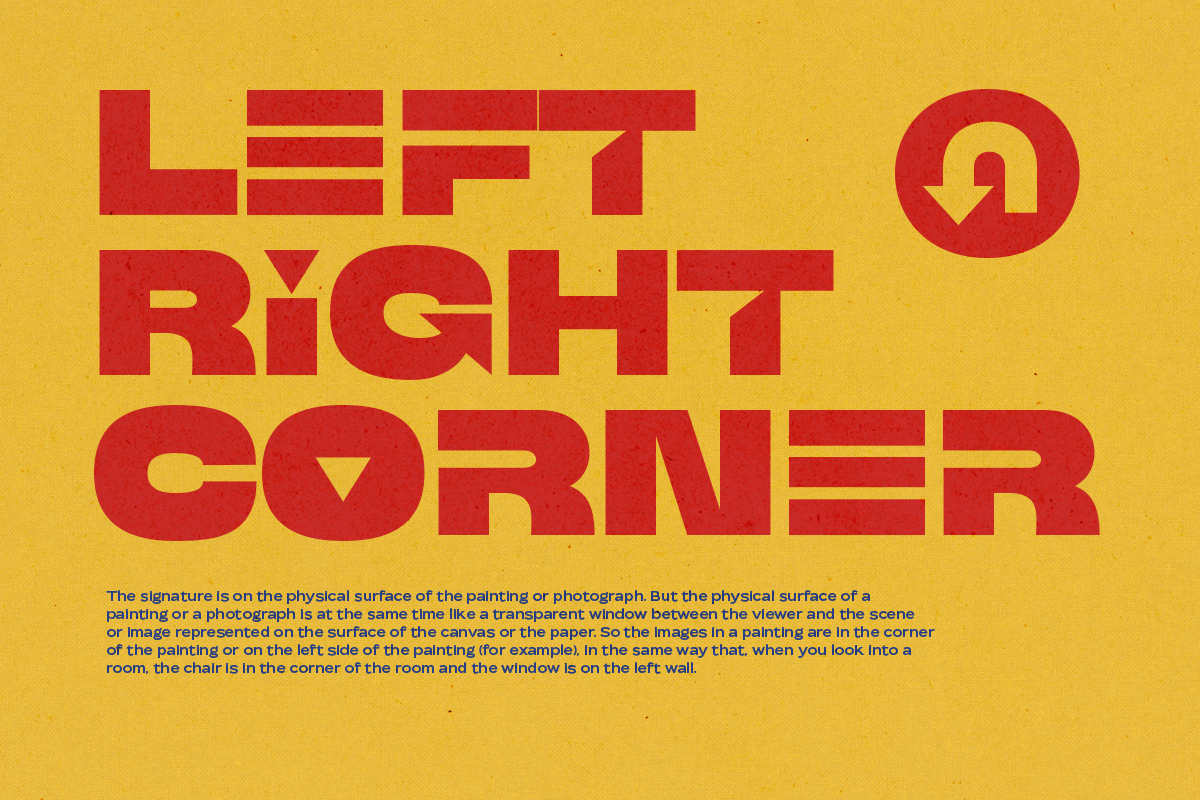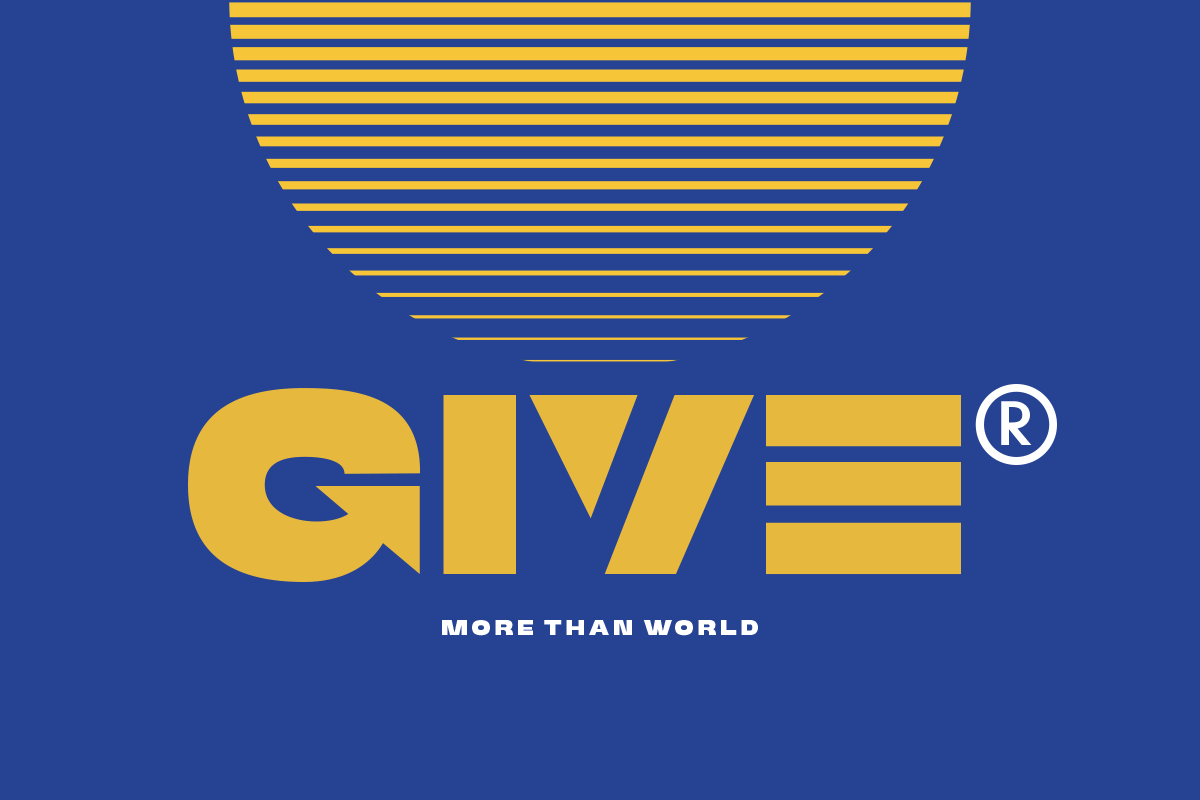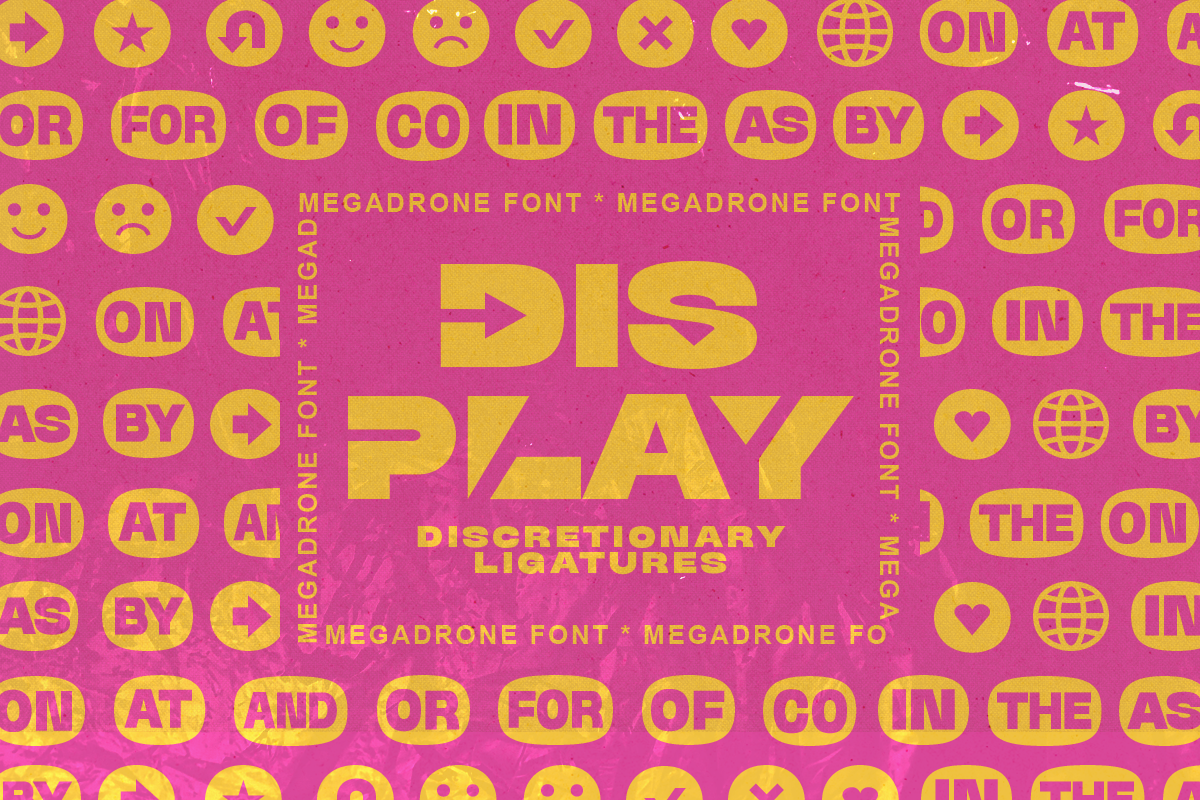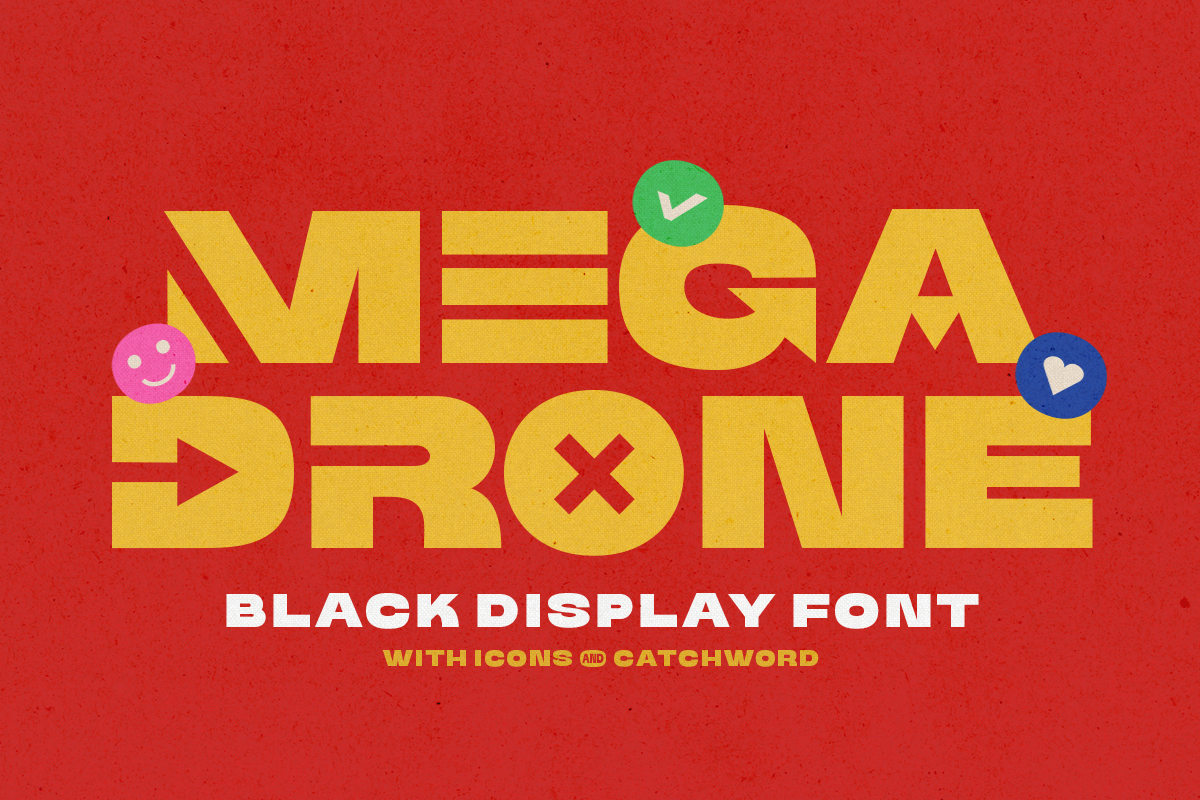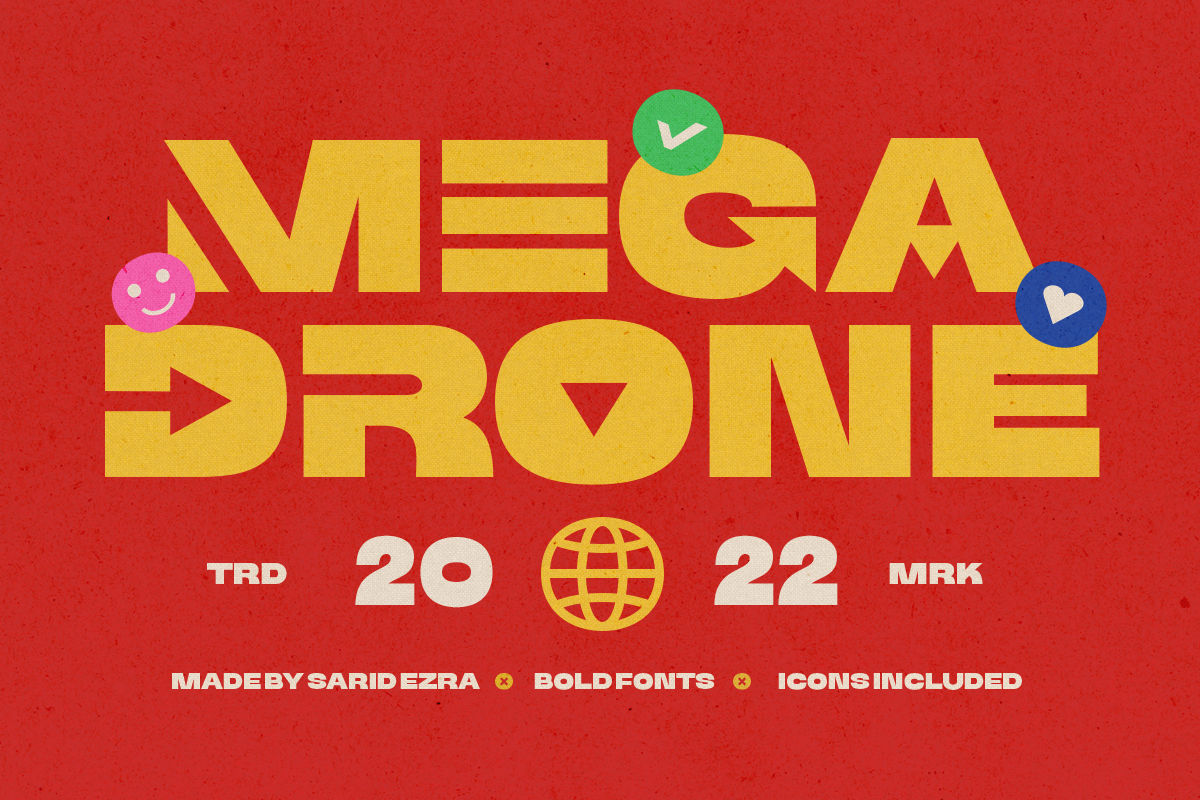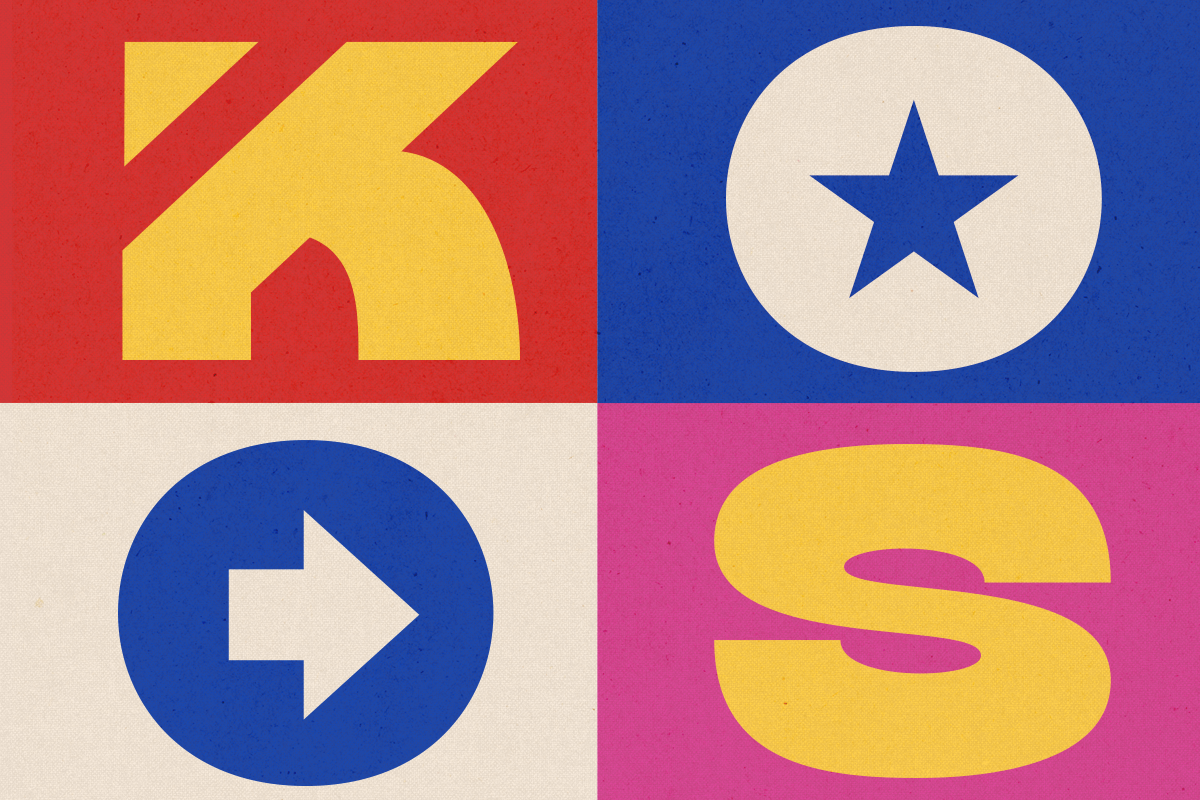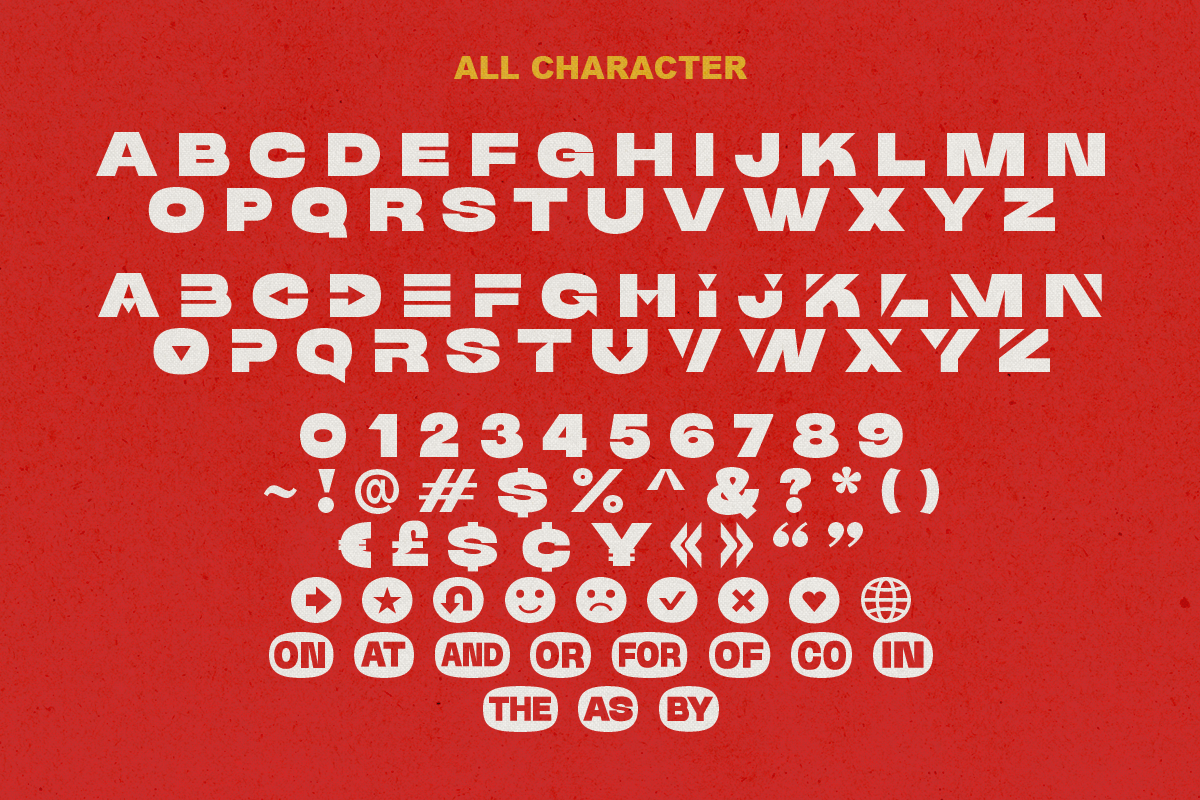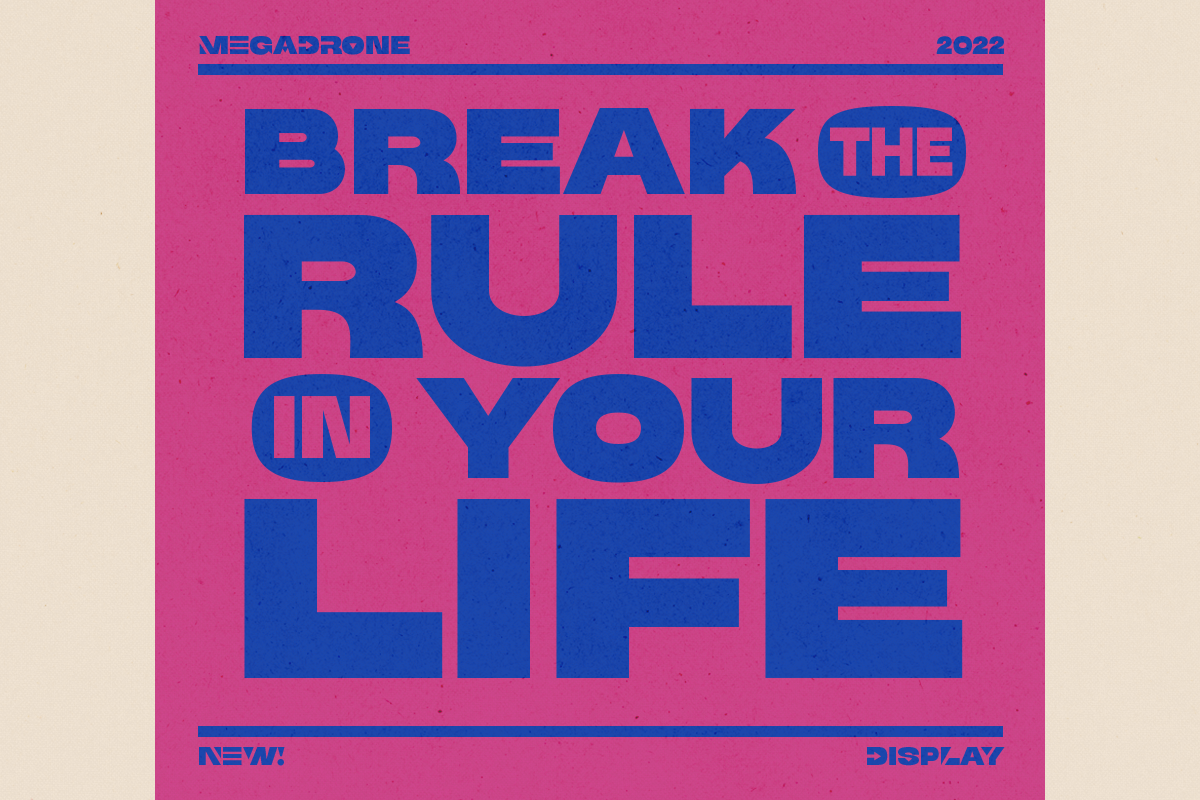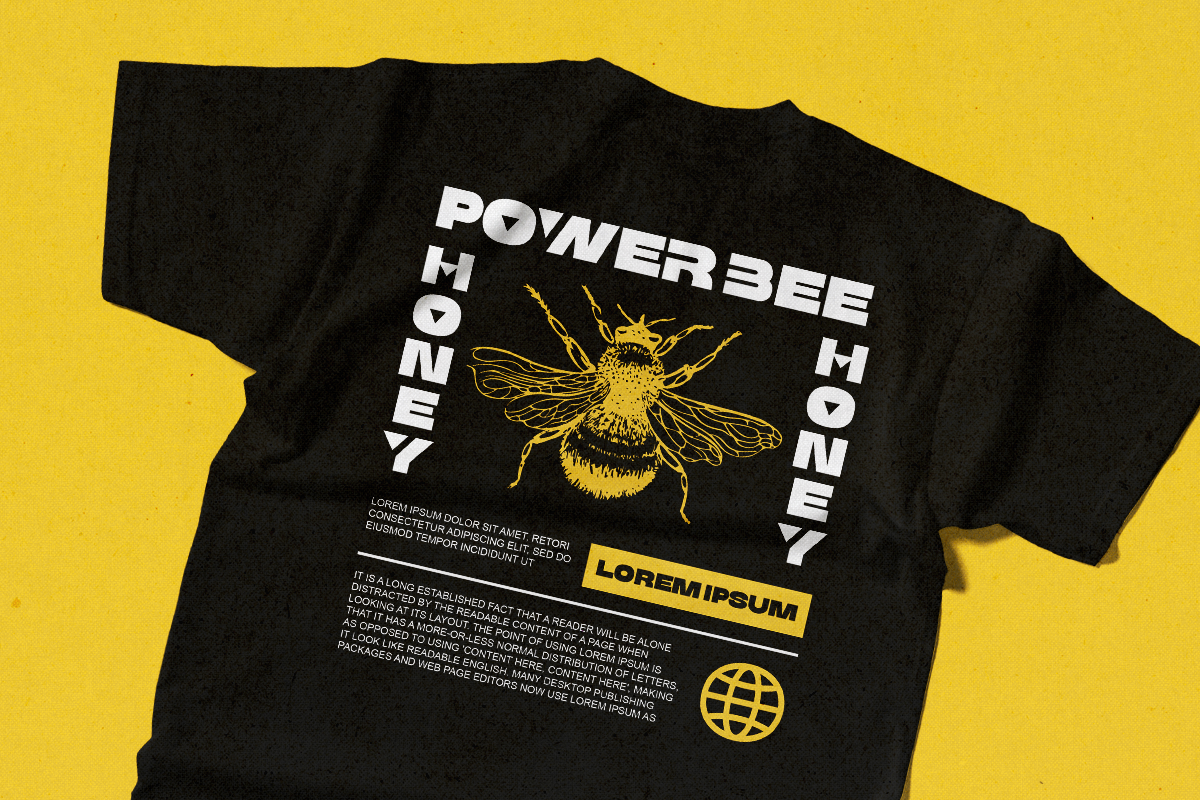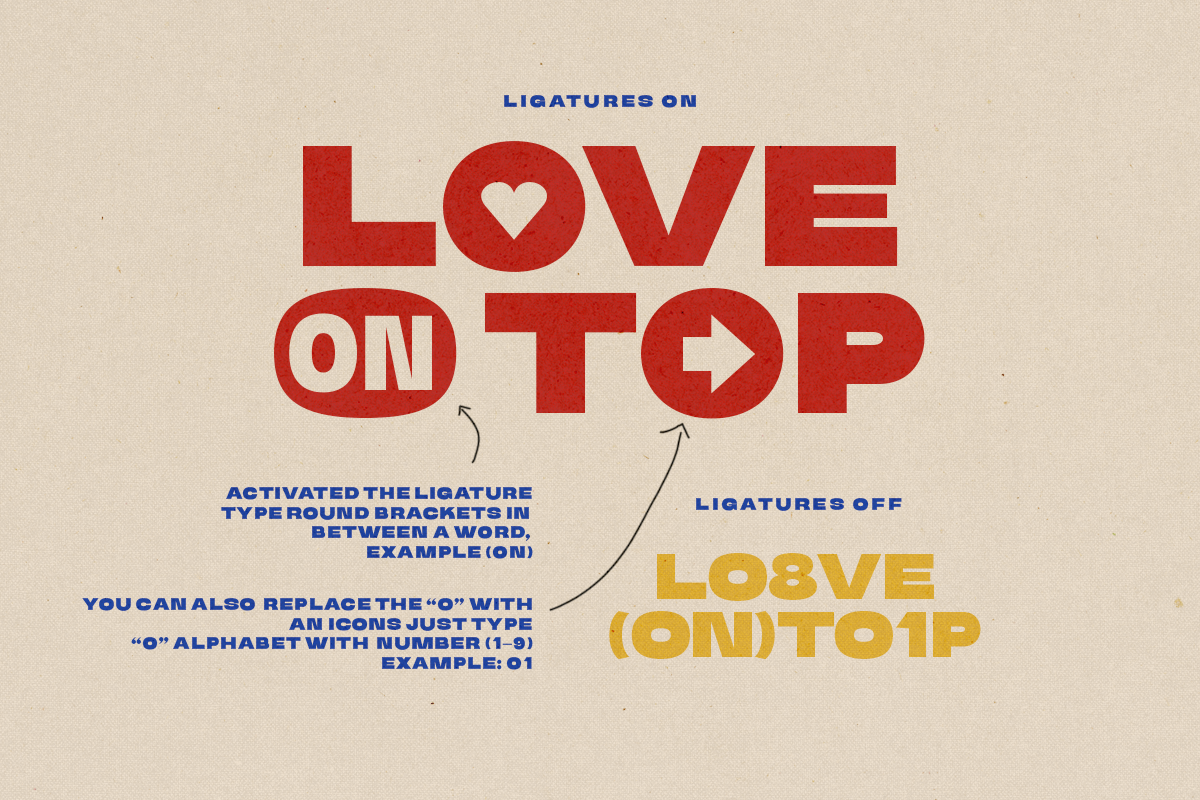
Mega Drone - Black Display Font
Mega Drone is a black and fat display font with unique lowercase. You can use this font for many project that require strong and bold vibes. This font also including icons and catchwords that you can access just from ligature. Just mix the uppercase and lowercase in a word for better looks. This font also suitable for logo and more. Mega Drone also support multi language!